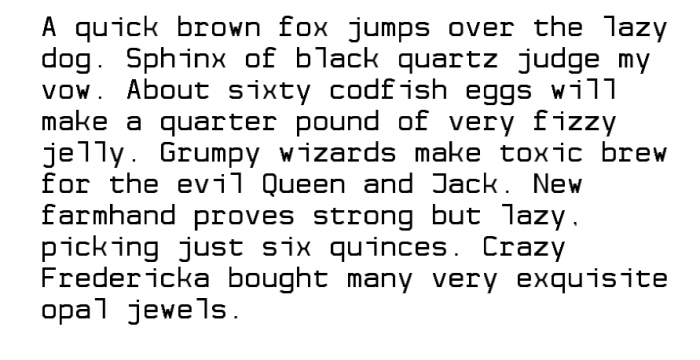
squiggly w
The font is made very neatly, it is functional and tasteful, excellent white balance (but with such l i I would increase the spacing, this is still needed for small size), you are talented and understand very well in font design. I would very much like you to try the Cyrillic alphabet.